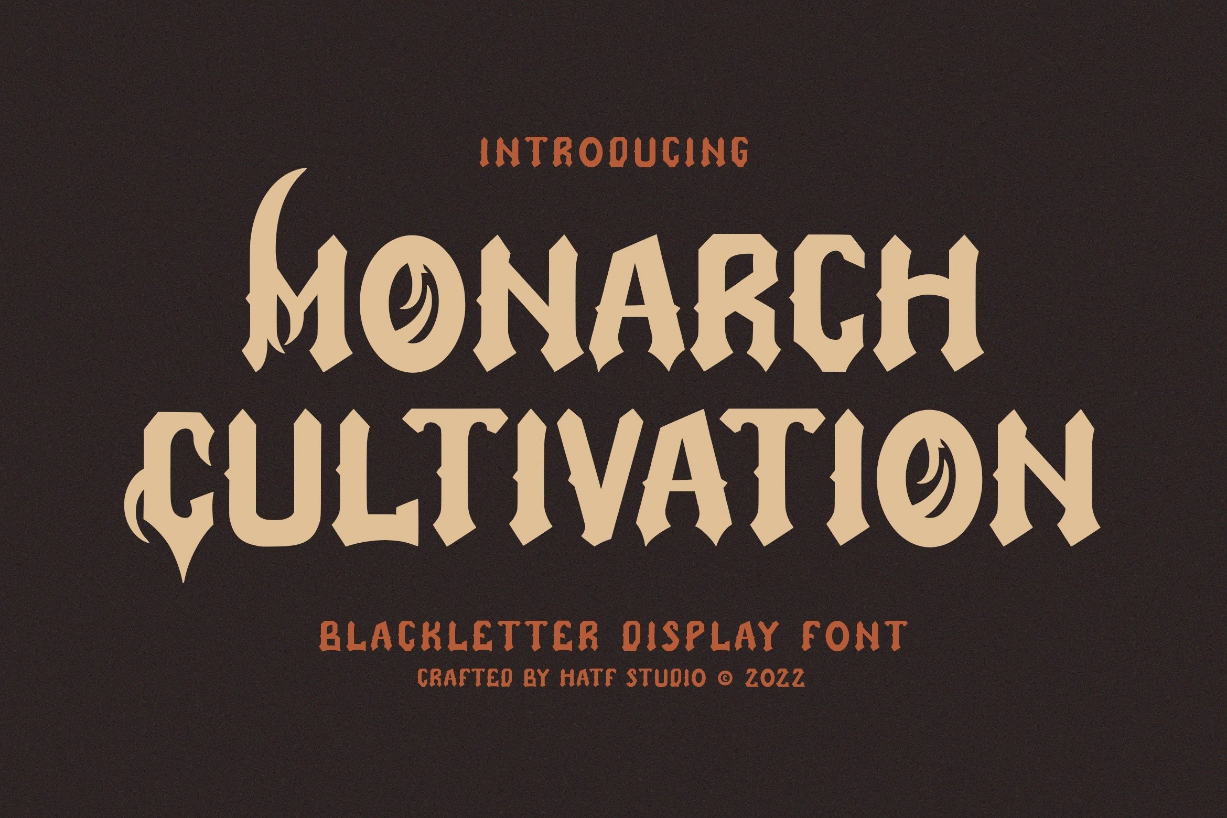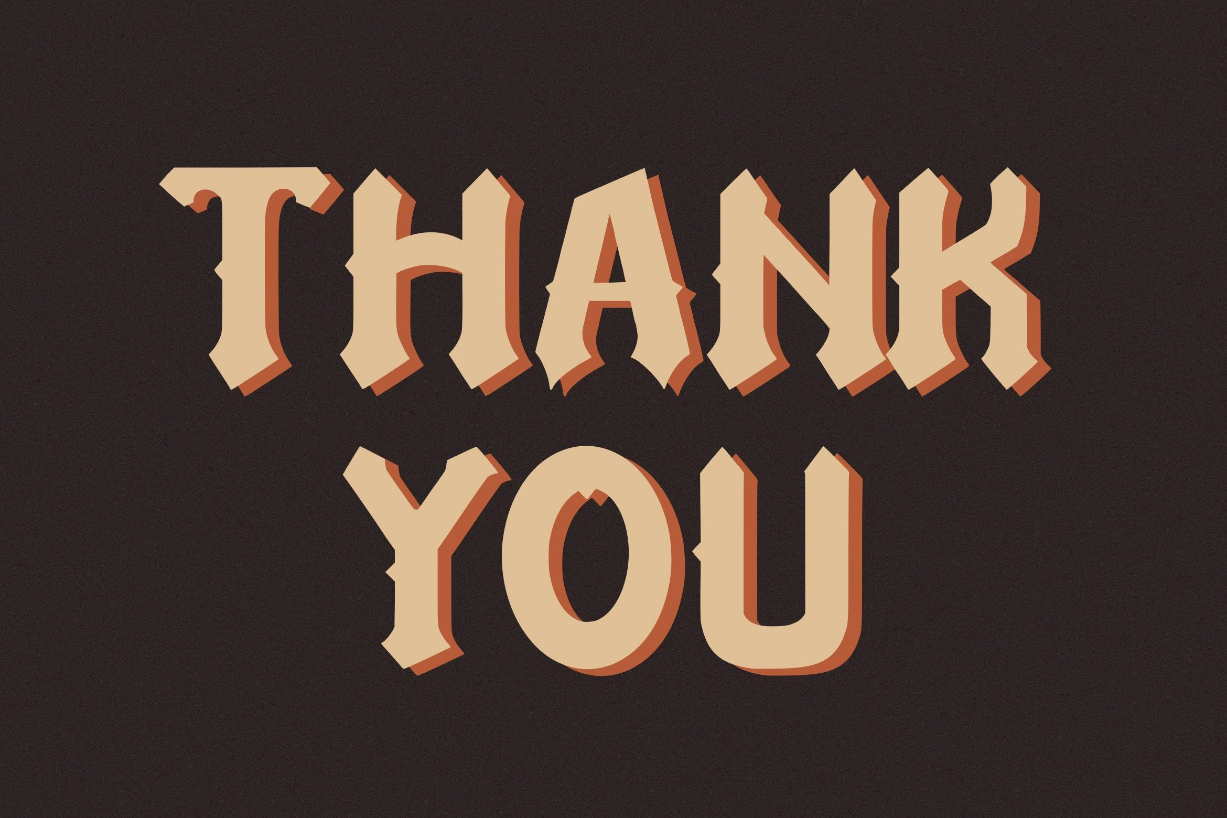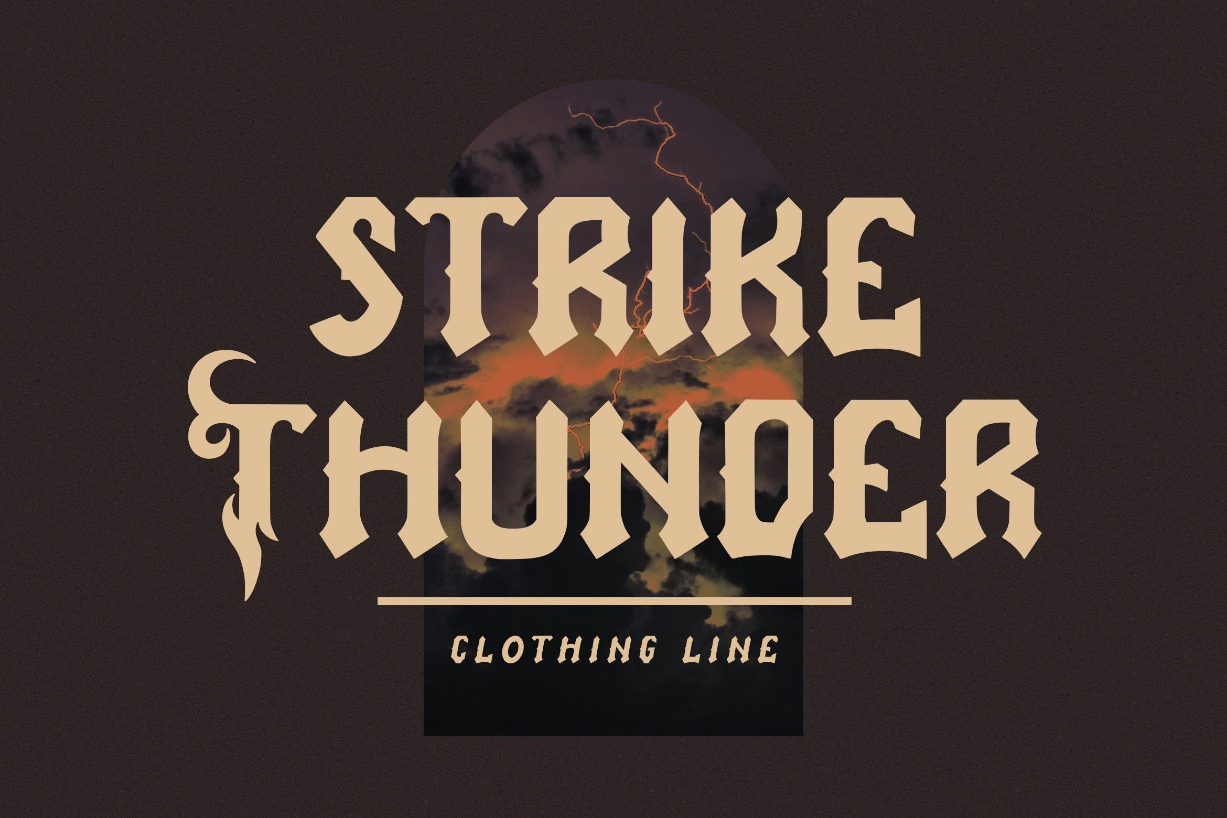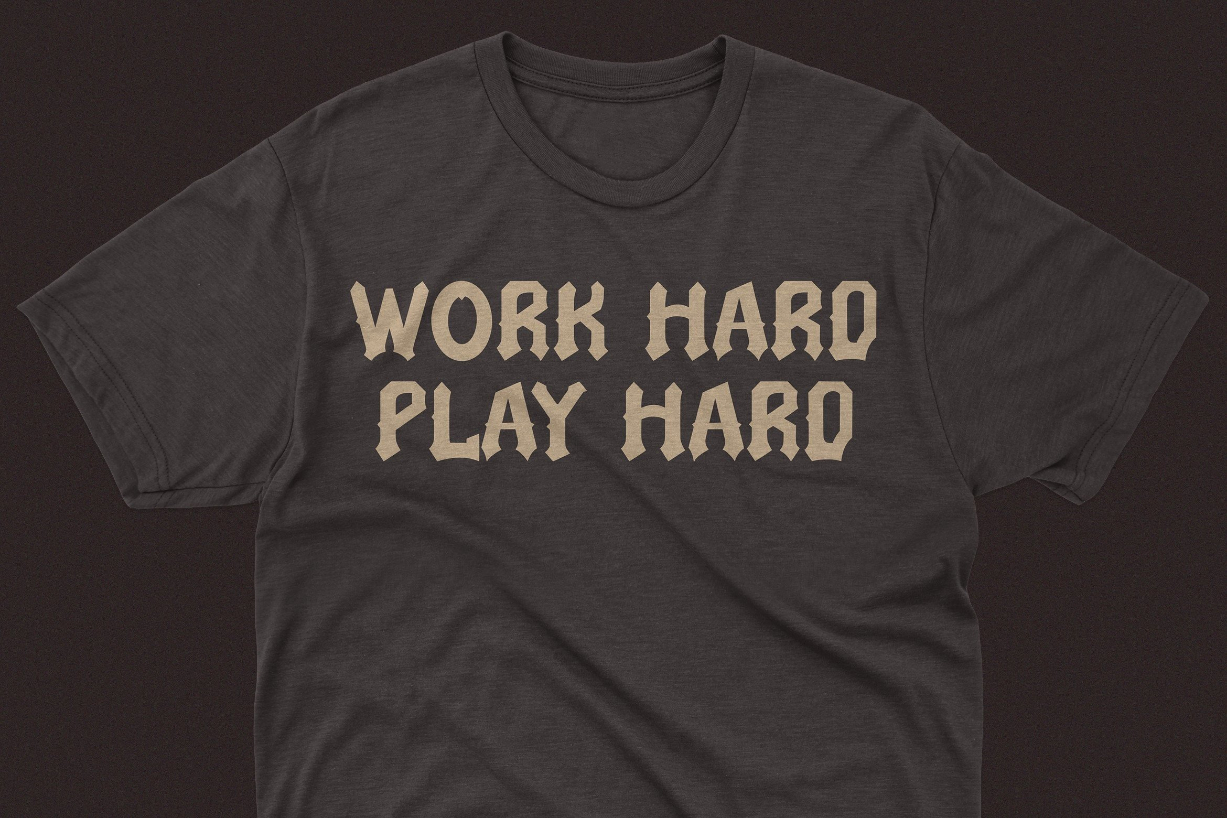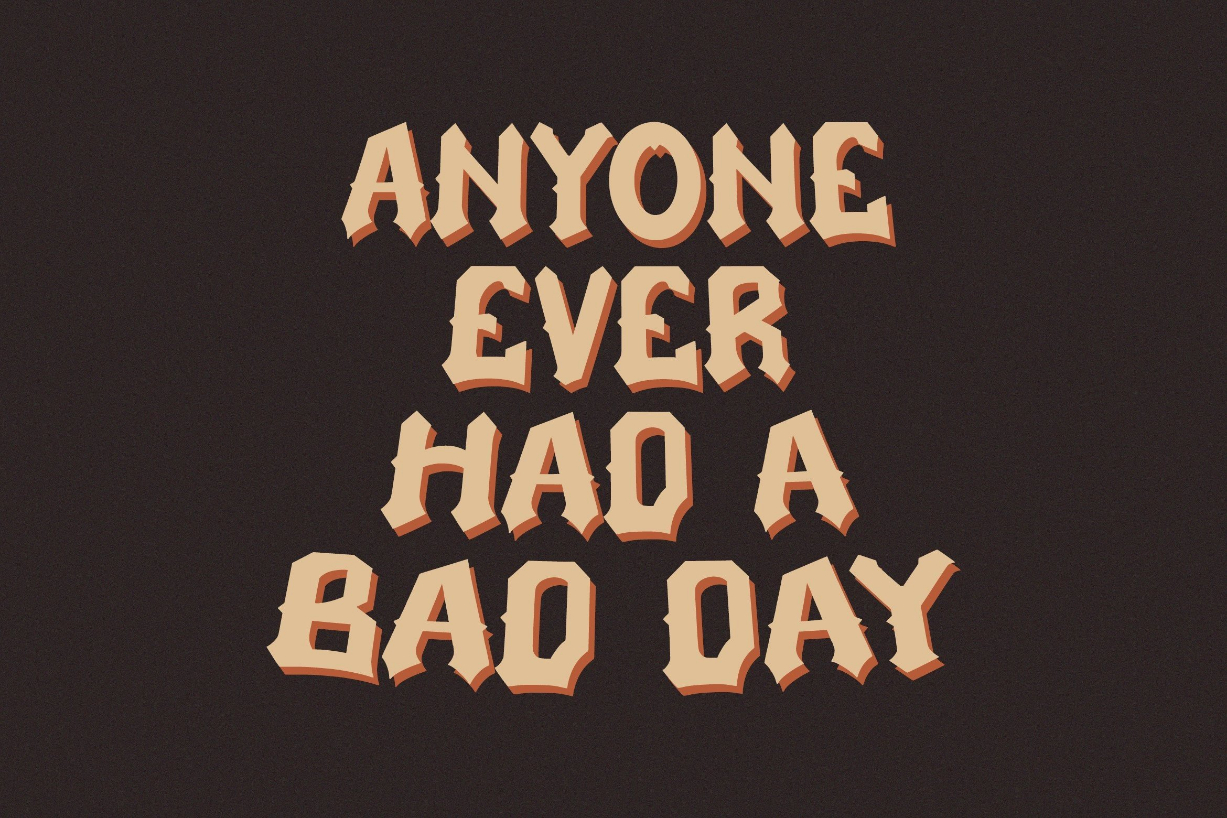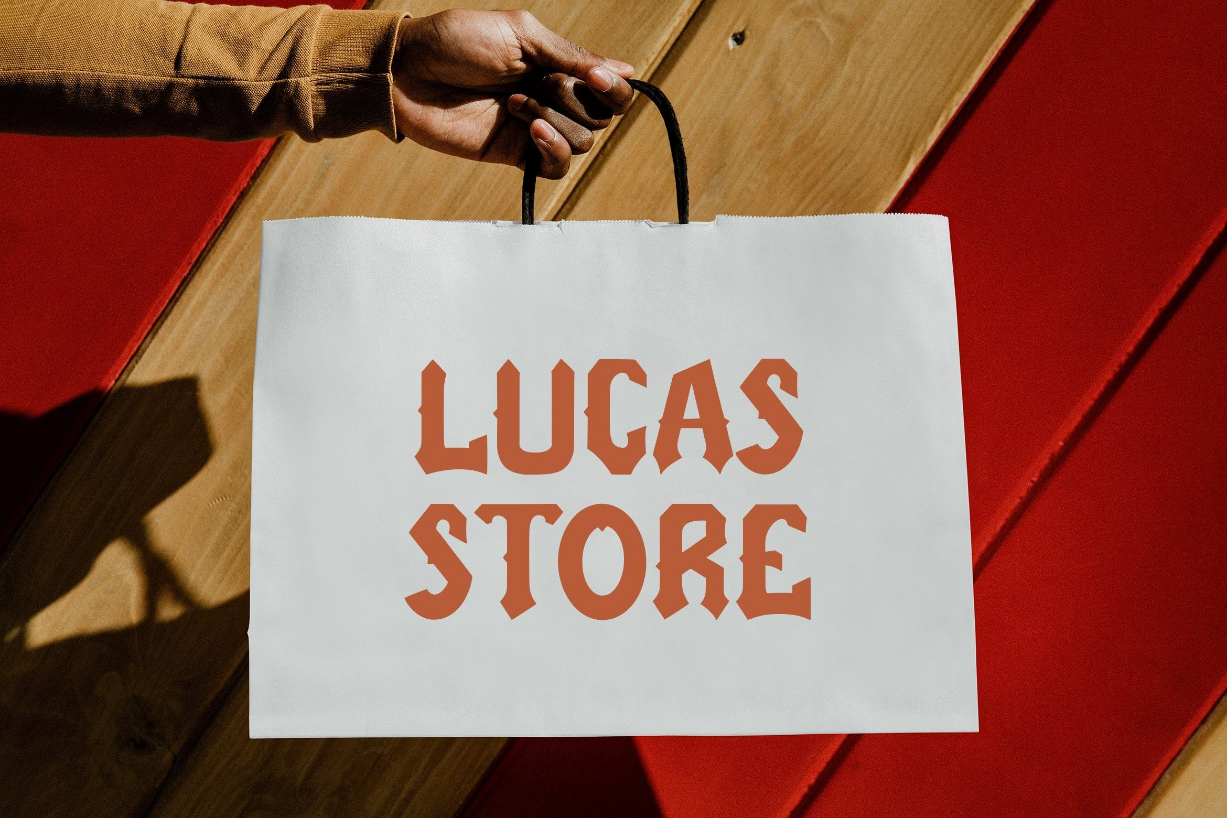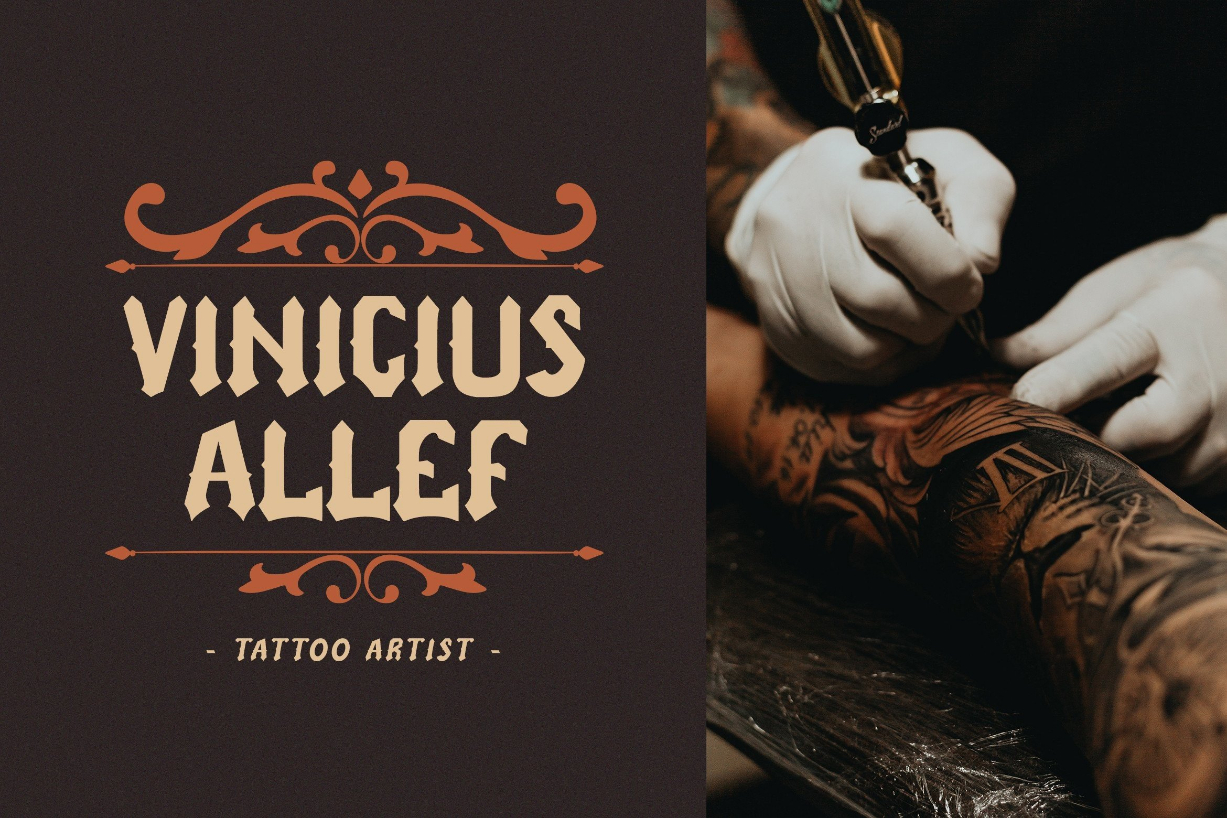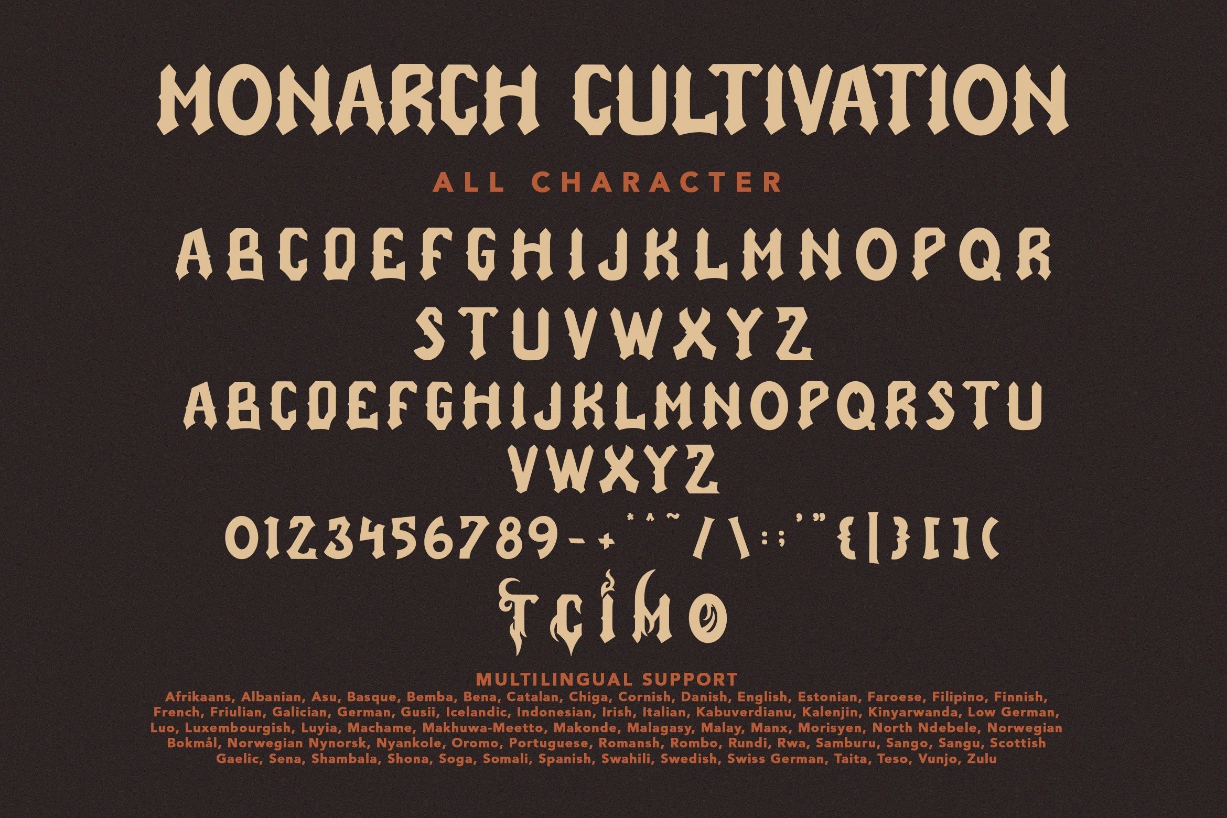
Monarch Cultivation Font
About Monarch Cultivation Font
Monarch Cultivation is a blackletter display font inspired by gothic and horror styles. Its shape is very unique and perfect for any project that you will use it in.
Monarch Cultivation is perfect for logotypes, posters, badges, book covers, shirt designs, packaging, and more.